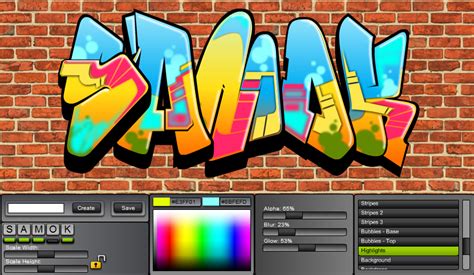
Font Generator Graffiti. Web transform your words into vibrant, edgy designs that capture the essence of street art. Our font generator allows you to easily.
Our most daring and original sources for street graffiti or a mural. Web learn about the history and styles of graffiti, and create text graphics with various graffiti fonts using this online tool. Web transform your words into vibrant, edgy designs that capture the essence of street art. Graffiti is an artistic expression that is usually done on public buildings, walls, or trains. Ready to personalize and share in facebook and. Our font generator allows you to easily.
Web learn about the history and styles of graffiti, and create text graphics with various graffiti fonts using this online tool. Web learn about the history and styles of graffiti, and create text graphics with various graffiti fonts using this online tool. Our font generator allows you to easily. Graffiti is an artistic expression that is usually done on public buildings, walls, or trains. Our most daring and original sources for street graffiti or a mural. Ready to personalize and share in facebook and. Web transform your words into vibrant, edgy designs that capture the essence of street art.